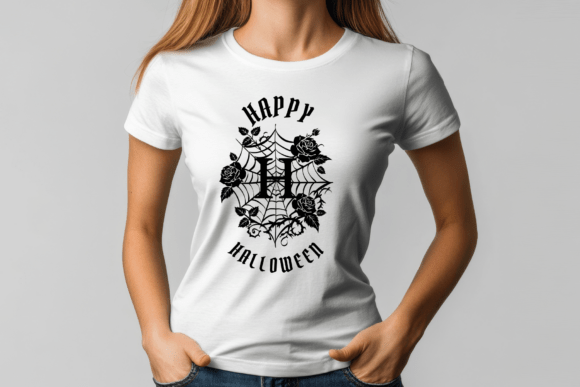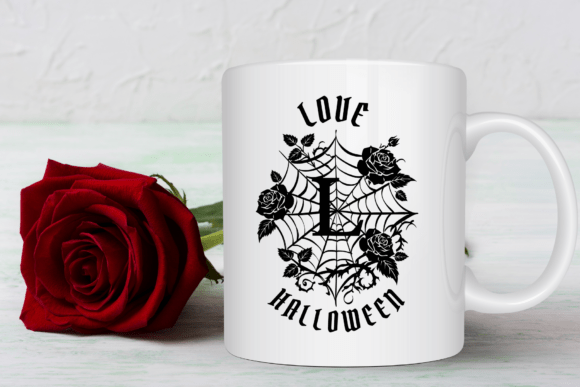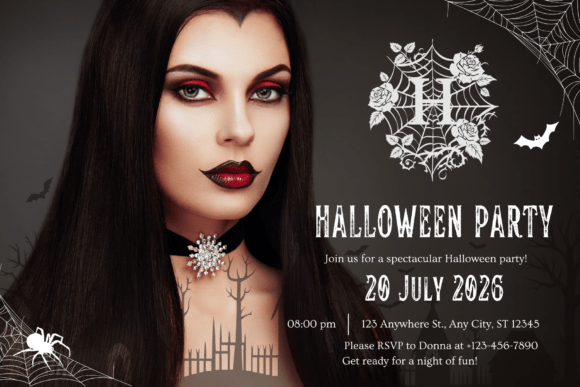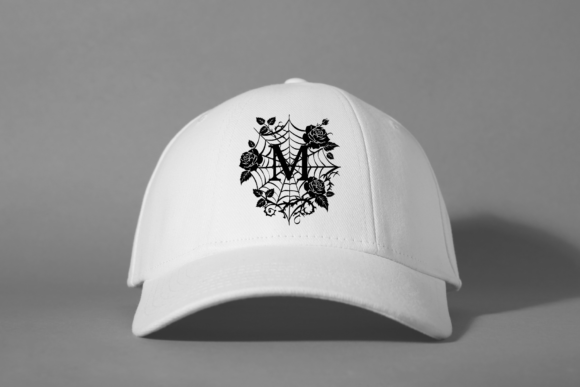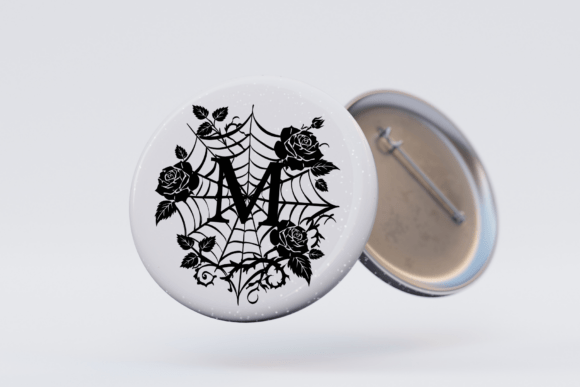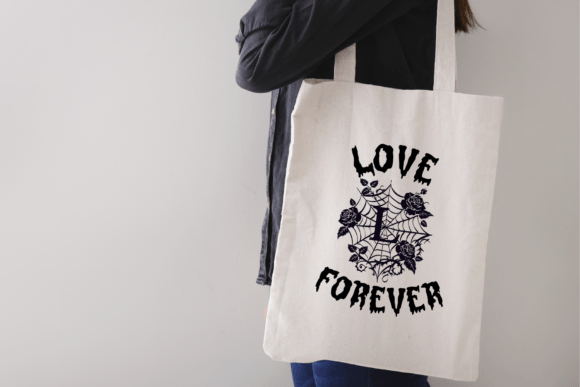
Introduction to Halloween Rose Font
Create the most impressive one with this cool Halloween Rose and Spider Web font design.
It looks both scary and nice, just perfect for a unique design Halloween Rose is a decorative font.
Key Features of Halloween Rose Font